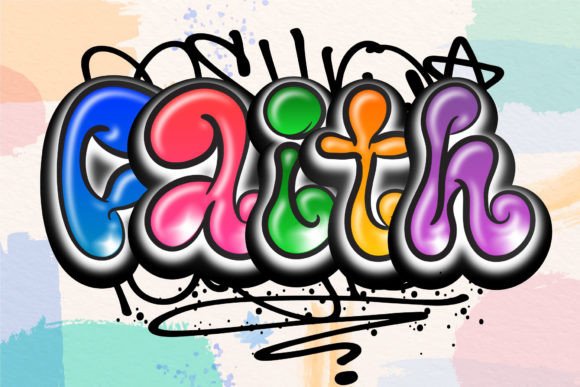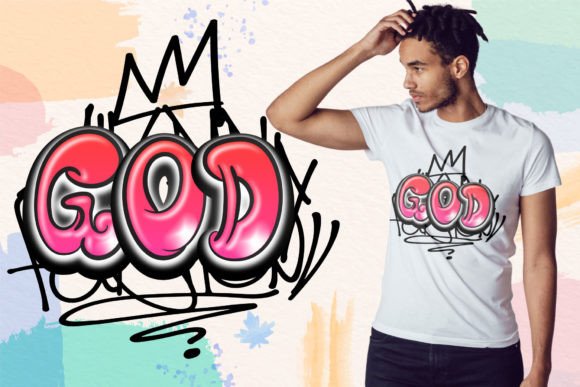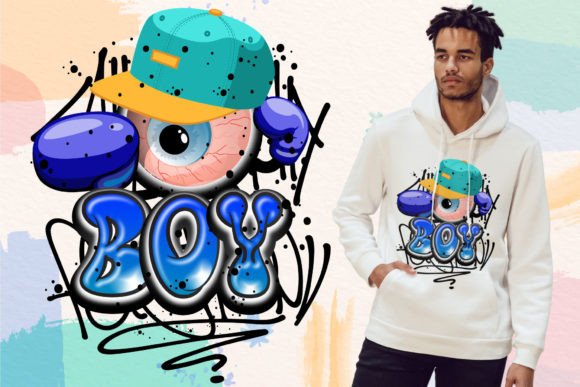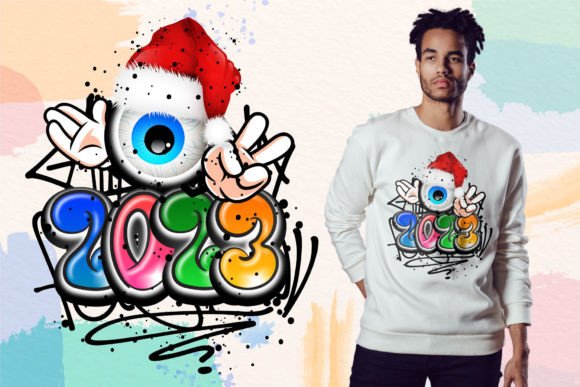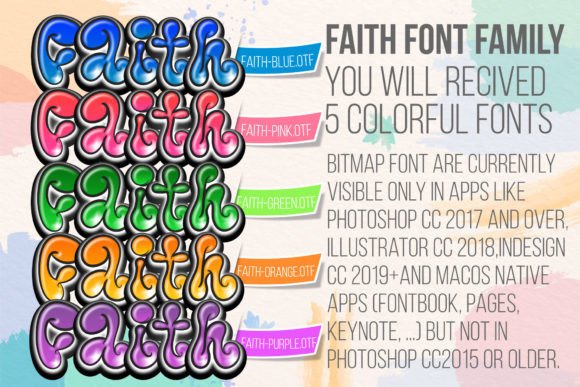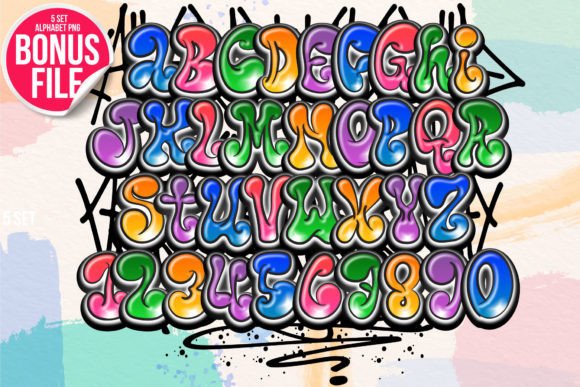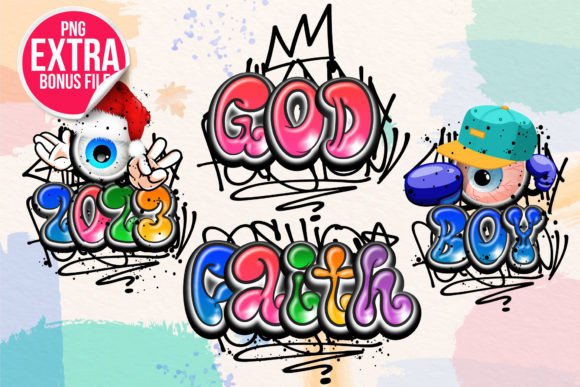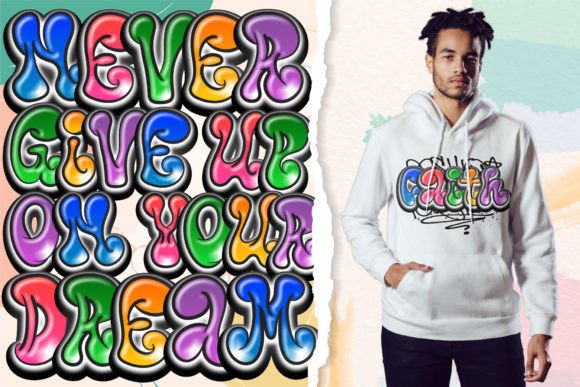
Faith Font
About Faith Font
Faith is an edgy and modern graffiti-styled font that adds a vibrant and urban touch to any design. Whether you’re working on street art projects, urban-themed designs, music covers, posters, or any other creative endeavor that requires an urban aesthetic, Faith font is here to make a bold statement.
With its colorful and dynamic letterforms, Faith font captures the energetic and rebellious spirit of graffiti art. Each letter is meticulously crafted with graffiti-inspired elements, including drips, splatters, and sharp angles, giving it an authentic and urban look. The vibrant colors used in the font further enhance its visual impact, allowing you to create eye-catching and attention-grabbing designs.
Let Faith font unleash your imagination and elevate your designs with its urban flair. Whether you’re designing for personal projects or professional endeavors, this graffiti-styled font will add an edgy and modern touch, setting your creations apart from the crowd. Get inspired by the urban landscape, express your creativity, and let Faith font become an essential tool in your design arsenal.